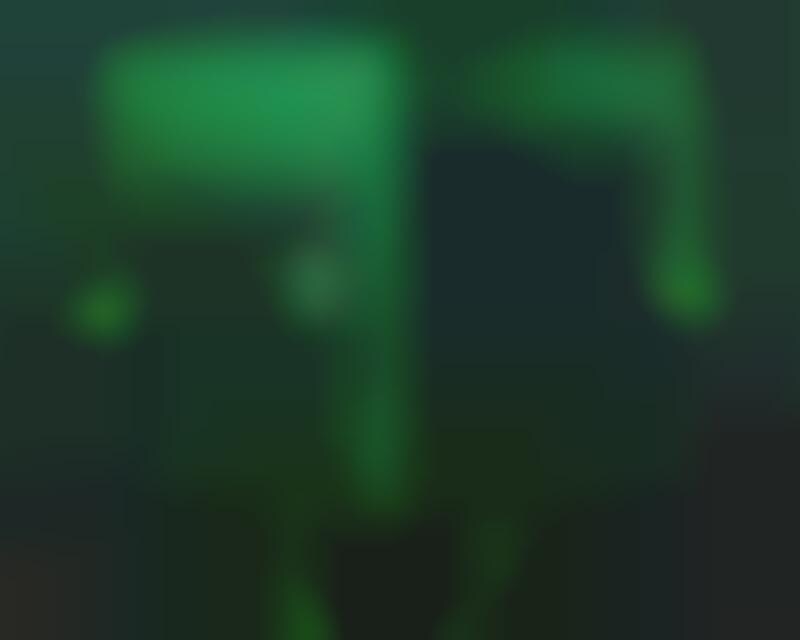
Inspired by the work of Jim Henson, the 'Kernit' font was made to celebrate the artist's work and tribute the legions of committed fans. Originally intended for a Jim Henson exhibition at New York's Museum of the Moving Image, the font has instead been released for free online. The Kernit font was created by designers at MCKL and CoOLLINS and was "meant to capture the same imagination, fun and whimsy which we came to love in Henson’s vivid work."
The font distinguishes itself with plenty of curves, with the counters and eyes of letters appearing squished. The overall design was meant to spring off the page with a sense of energy and was meant to evoke a visual style true to Jim Henson.
The 'Kernit' Font Captures the Whimsy of Jim Henson and His Muppets